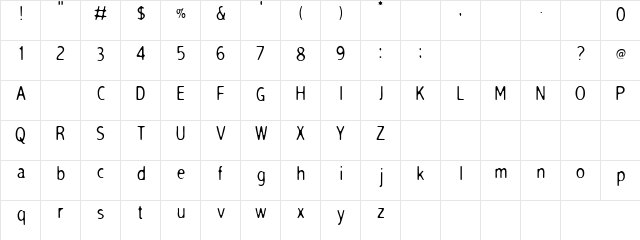
Gadget Stony Regular
Design Context for Gadget Stony Typeface
Gadget Stony offers clean, dependable letterforms without strong stylistic allegiance, making it a practical choice for designers who need flexibility.